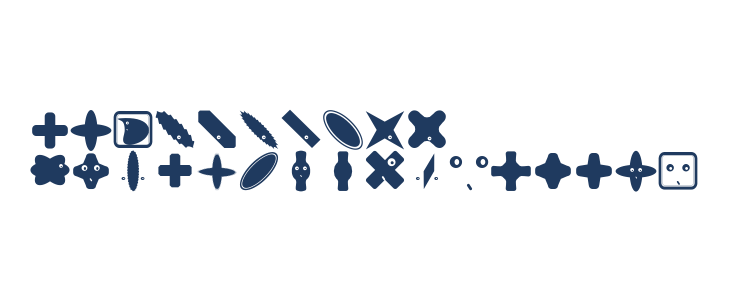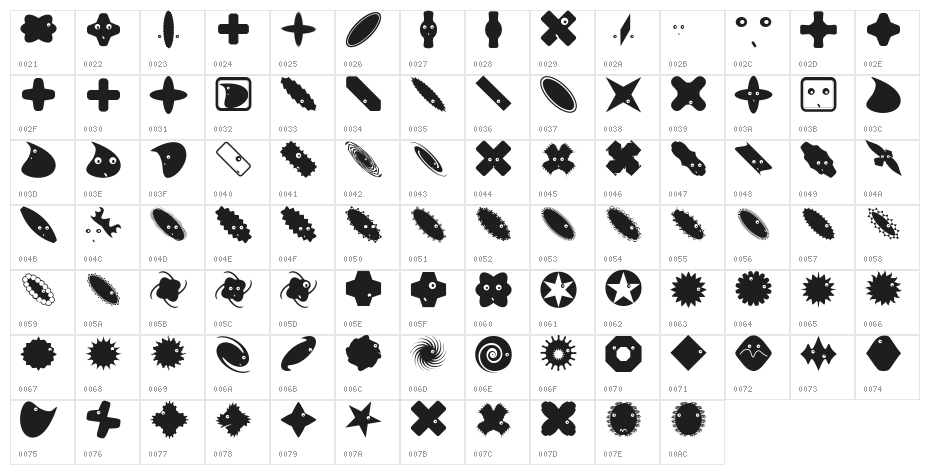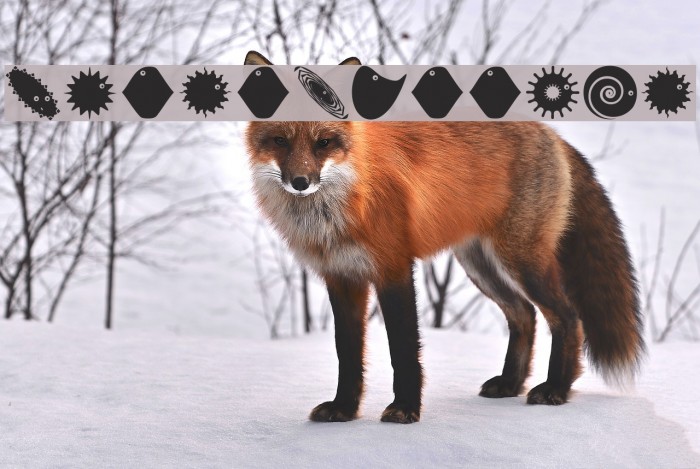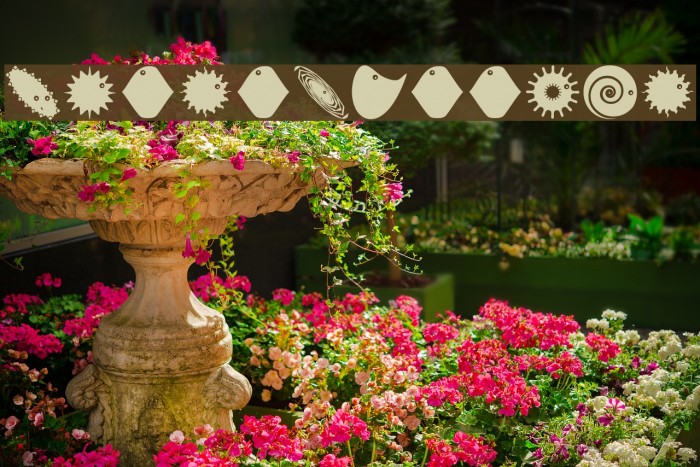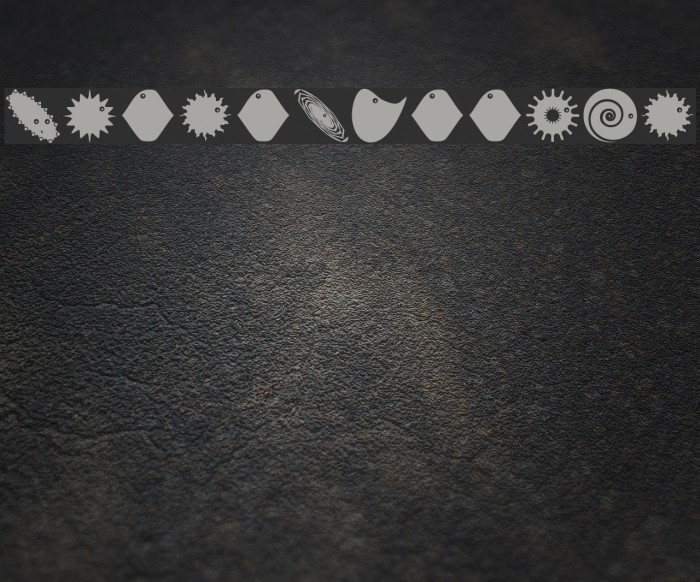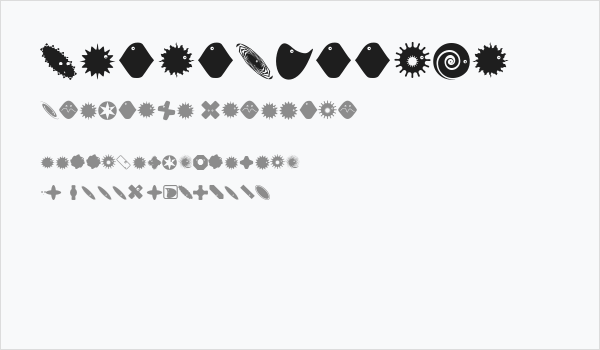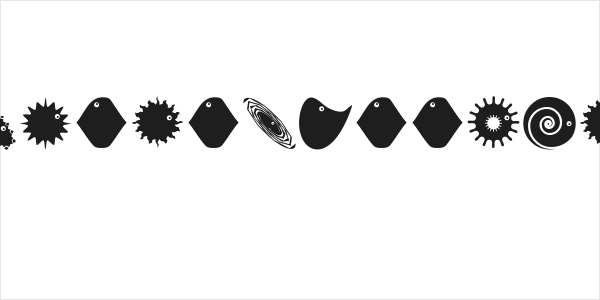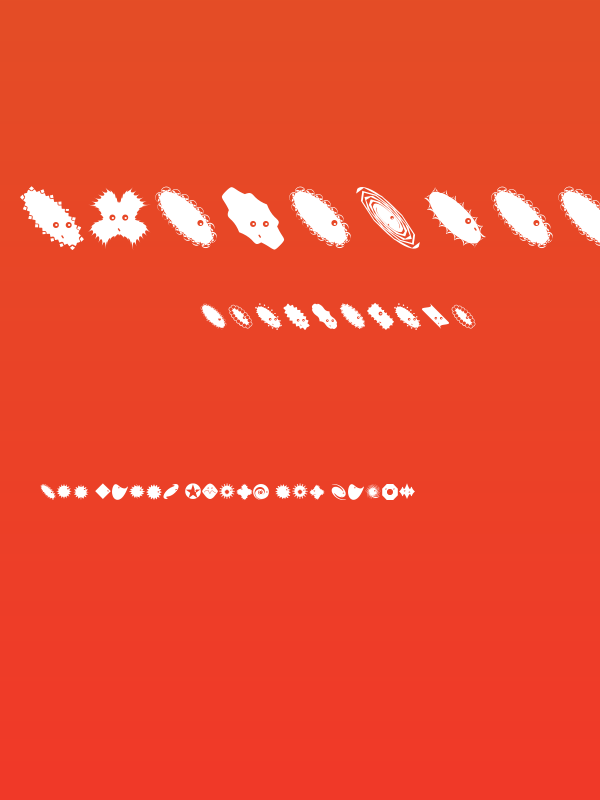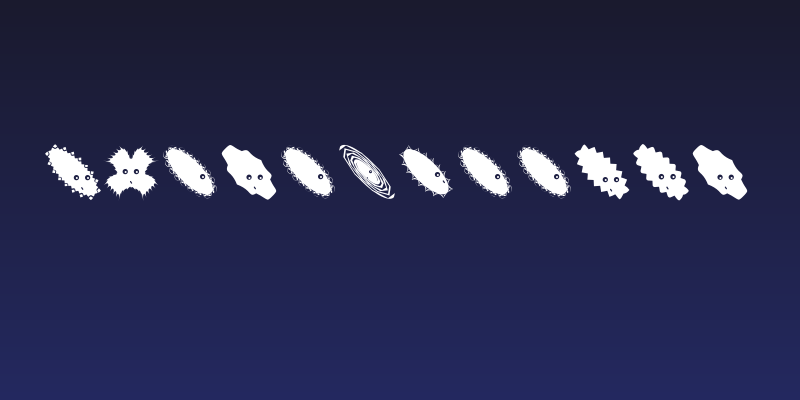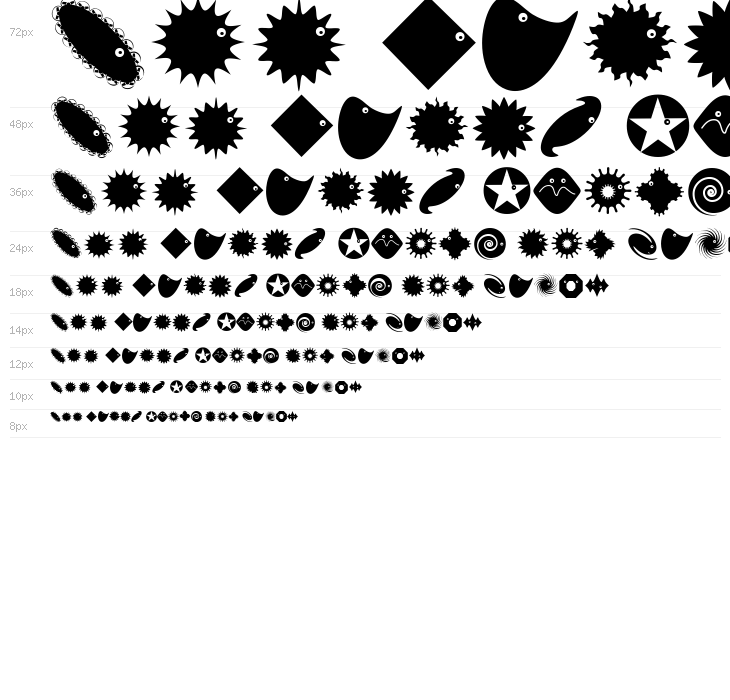
PetitButtoni Font
PetitButtoni Description
A playful and decorative dingbat font featuring a variety of abstract, whimsical, and geometric shapes, including stars, spirals, blobs, and icons with cartoon-like faces and bold silhouettes.
| Overall Style | Playful, Whimsical, Decorative |
| Use Case | Icons, Decorative elements, Logos, Posters |
| Proposed Projects | ChildrenΓ’β¬β’s books, playful branding, party invitations, educational materials, stickers, and creative design projects. |